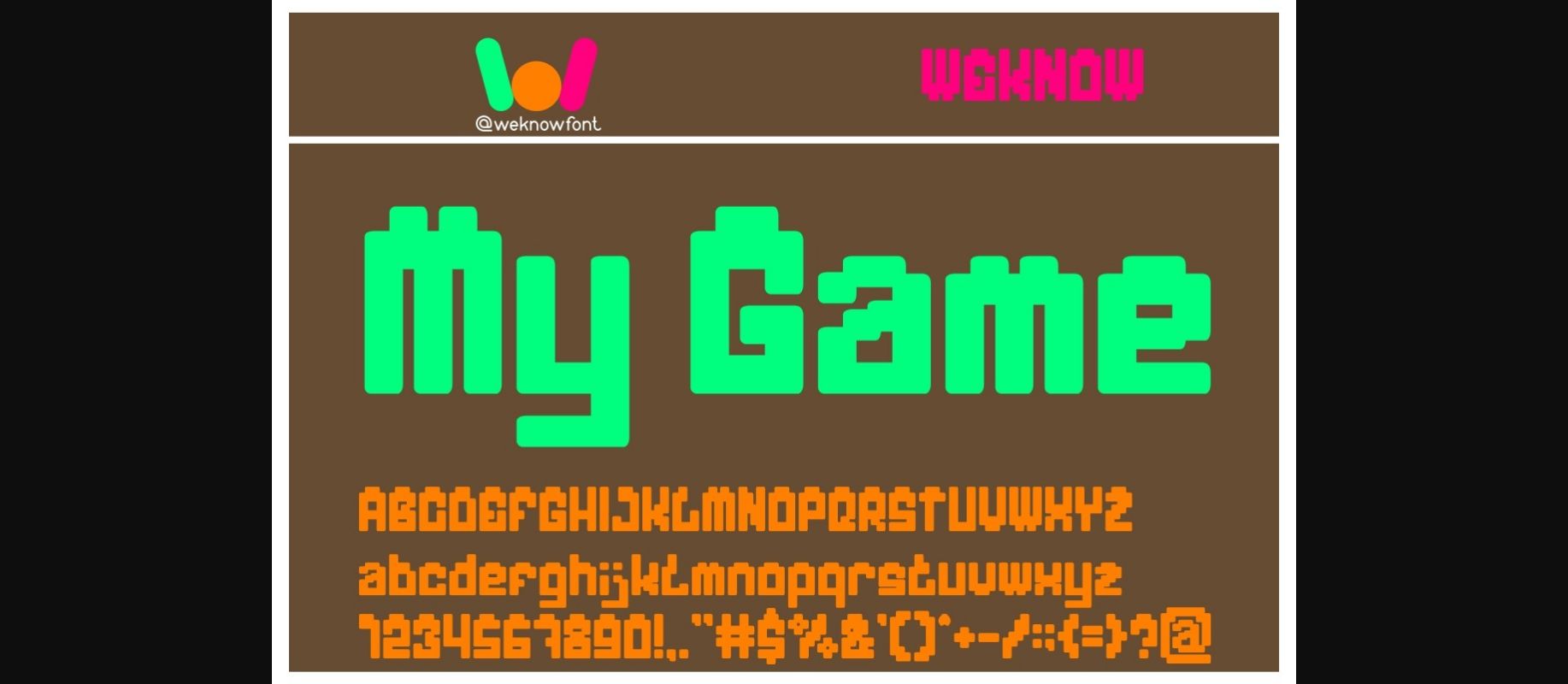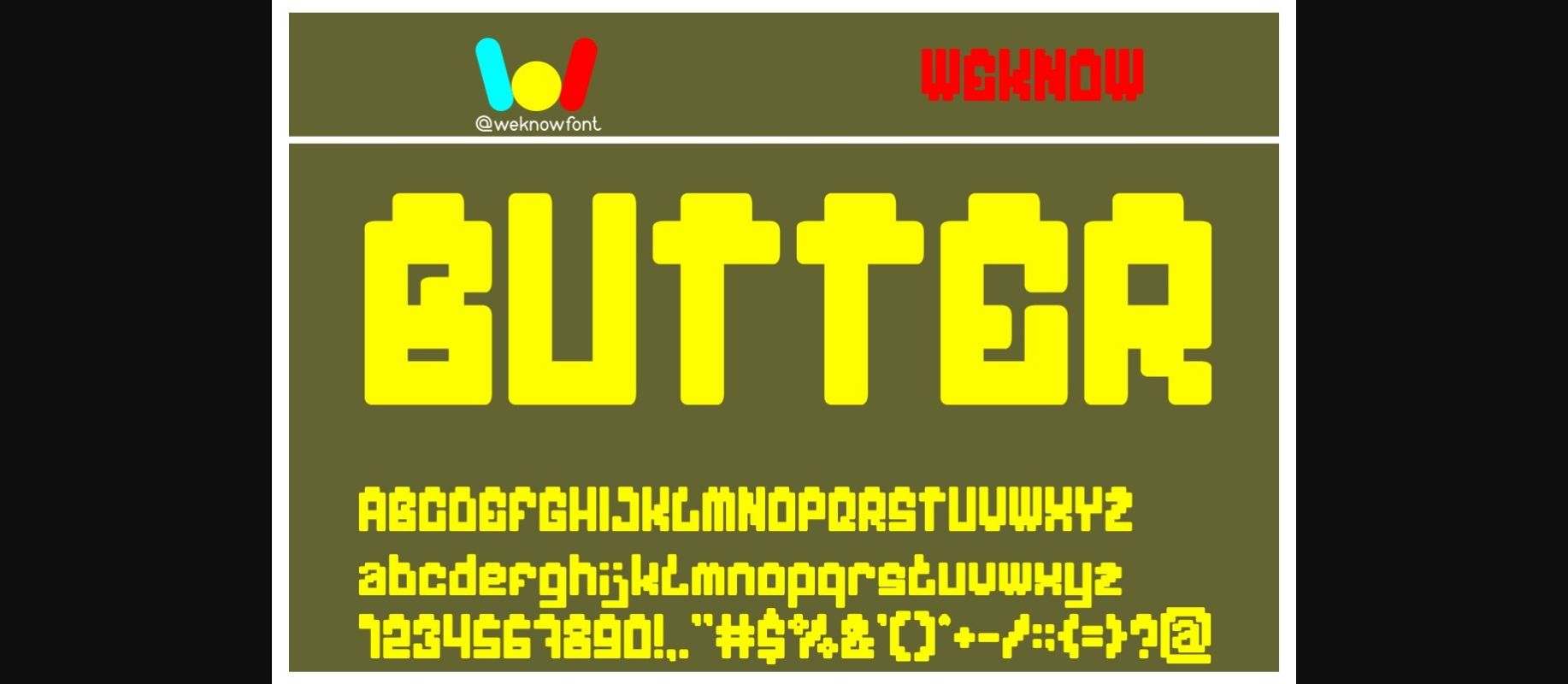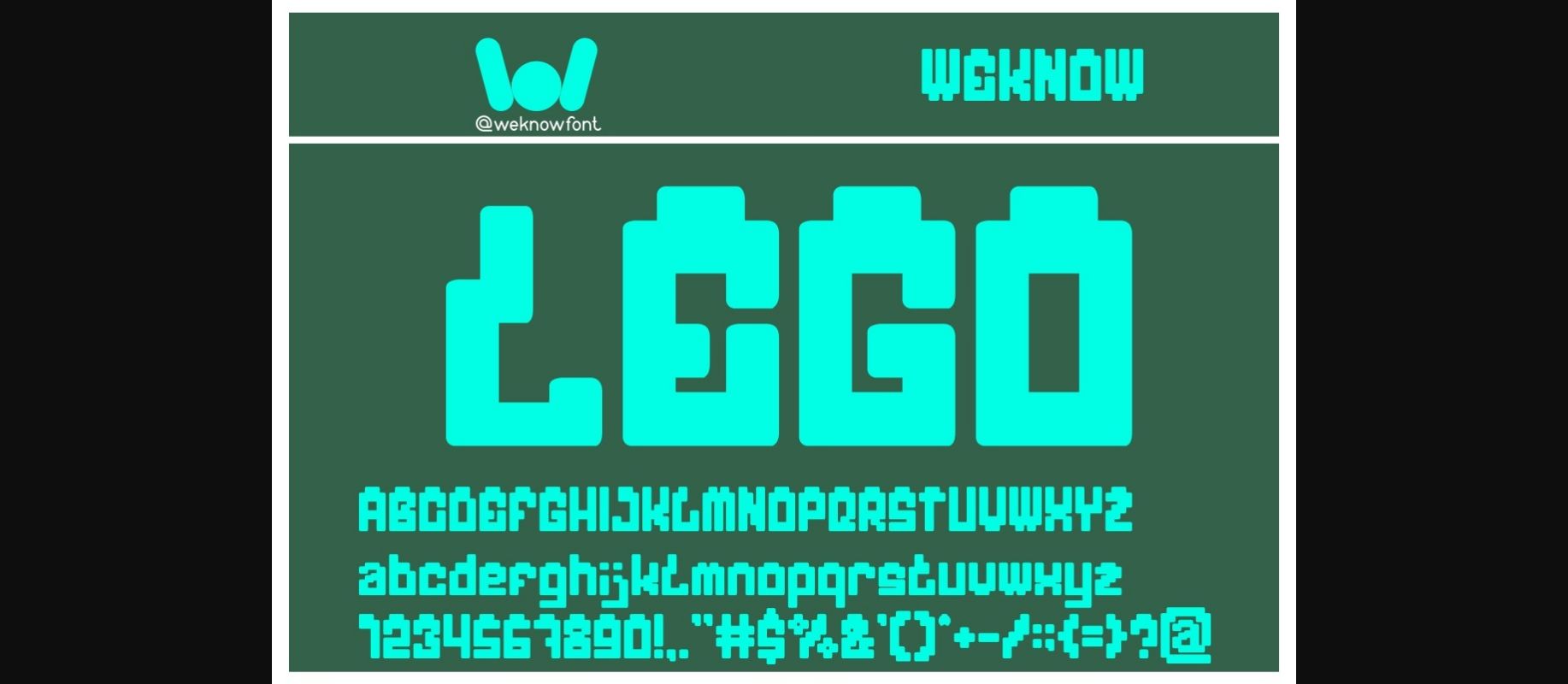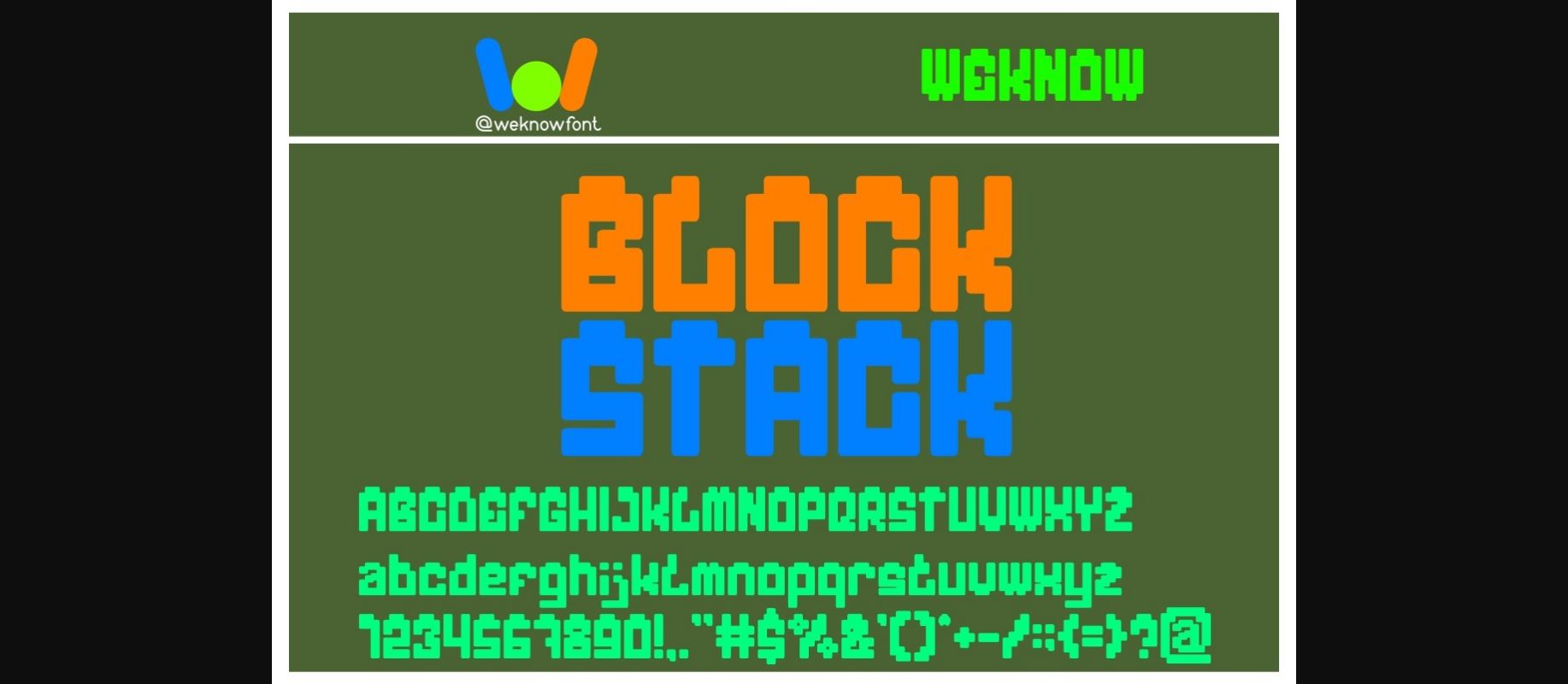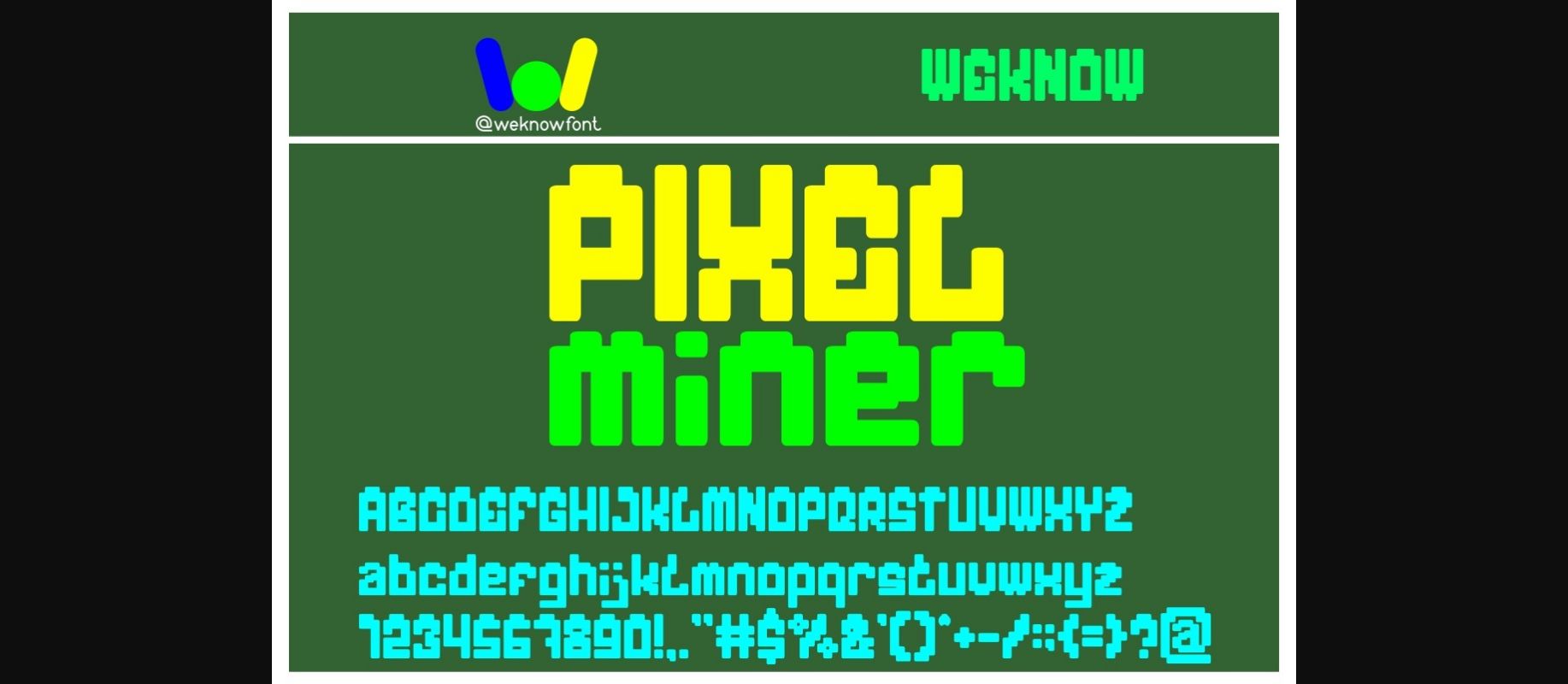
My Game Font
About My Game Font
My Game is a fancy and playful decorative font perfect for logo, logotype, headline, corporate identity, brand identity, apparel industry, poster, music, movie, game, magazine, book, comic, cartoon, YouTube, Instagram, website, or any of your creative design projects!